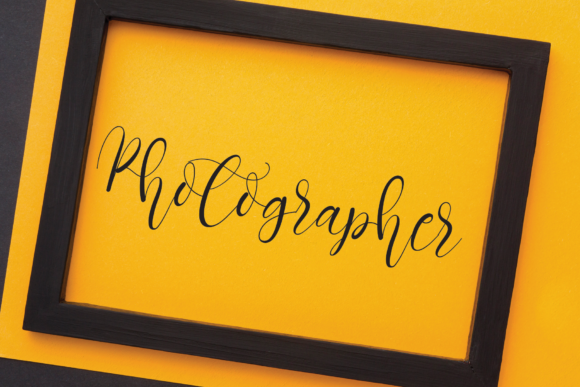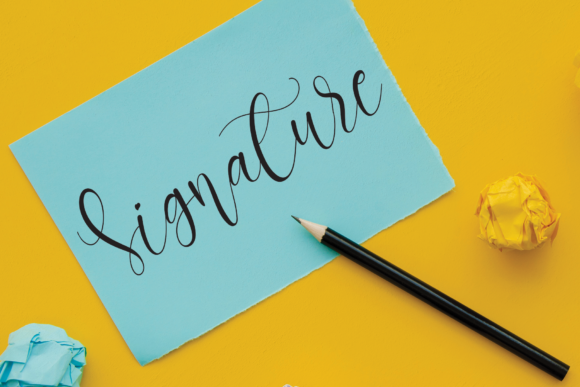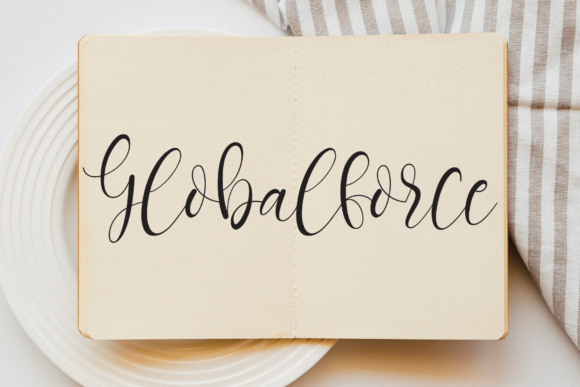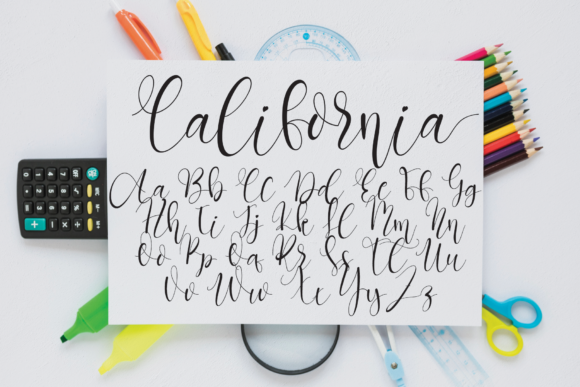
The Perfect Script for Your Masterpiece
Have you ever been brainstorming a new project and suddenly, the perfect font pops into your mind, taking your idea to the next level? That’s exactly what happened to me when I stumbled upon the California Font. I was working on a client’s wedding invitation, and I wanted something elegant yet playful. The California Font’s natural charm and style immediately caught my attention, and I knew it was the perfect fit.
The California Font is a beautifully crafted script font designed to elevate the look of any creation. Its purpose is to bring a touch of sophistication and whimsy to your projects, making it perfect for wedding invitations, branding, and other special occasions. As a designer, I can attest to the value of having a versatile font like the California Font in your toolkit. It’s a game-changer for adding a personal touch to your designs.
California Font Key Features
- Size: The font family includes various weights and styles, ranging from 100 to 900, with corresponding sizes and proportions to ensure legibility and aesthetic appeal.
- Unique Characteristics: This font features a distinctive, hand-drawn feel with subtle imperfections and variations, giving it a unique and organic look.
- Language Support: California Font includes support for a wide range of languages, including Latin, Cyrillic, and Greek scripts, making it a versatile choice for global applications.
- Kerning and Ligatures: The font includes advanced kerning and ligature tables, ensuring smooth and even spacing between characters for optimal readability.
California Font Review
As a designer, I was excited to dive into the California Font, but my experience was a mixed bag. Let’s start with what works well: ✨ The font’s laid-back, casual vibe is perfect for branding projects that need a relaxed, California-inspired feel. The script-style lettering is also quite versatile and can be used for a variety of applications, from logos to signage.
Some of the key features that I liked include:
- Beautiful script-style lettering that adds a touch of elegance to any design
- Perfect for branding projects that need a relaxed, California-inspired feel
- Highly versatile and can be used for a variety of applications
However, there are some limitations that I’d like to highlight: ⚠️ The font is not ideal for body text, as it can be difficult to read in certain situations. Additionally, the font’s high contrast between thick and thin lines can make it challenging to use in certain design contexts.
Overall, I’d say that the California Font is a great choice for branding projects that need a relaxed, California-inspired feel. However, it may not be the best choice for body text or more complex design projects.
California Font works well for headings and titles in Canva designs, such as social media graphics and blog posts.
California Font is a versatile font that can be used for a variety of design elements in Photoshop and Illustrator, such as typography and graphics.
California Font works well for presentations and documents, such as headings and titles.
Use California Font for headings and titles to create a clean and modern look.
Combine California Font with other fonts to create a unique and visually appealing design.
California Font is commonly used for:
- Social media graphics
- Blog posts and articles
- Presentations and documents
- Typography and graphics
Alternatives to California Font for Designers
Great Vibes is a modern, elegant script font suitable for creating a sense of sophistication and professionalism. It’s ideal for use in branding, advertising, and editorial designs where a touch of luxury is desired.